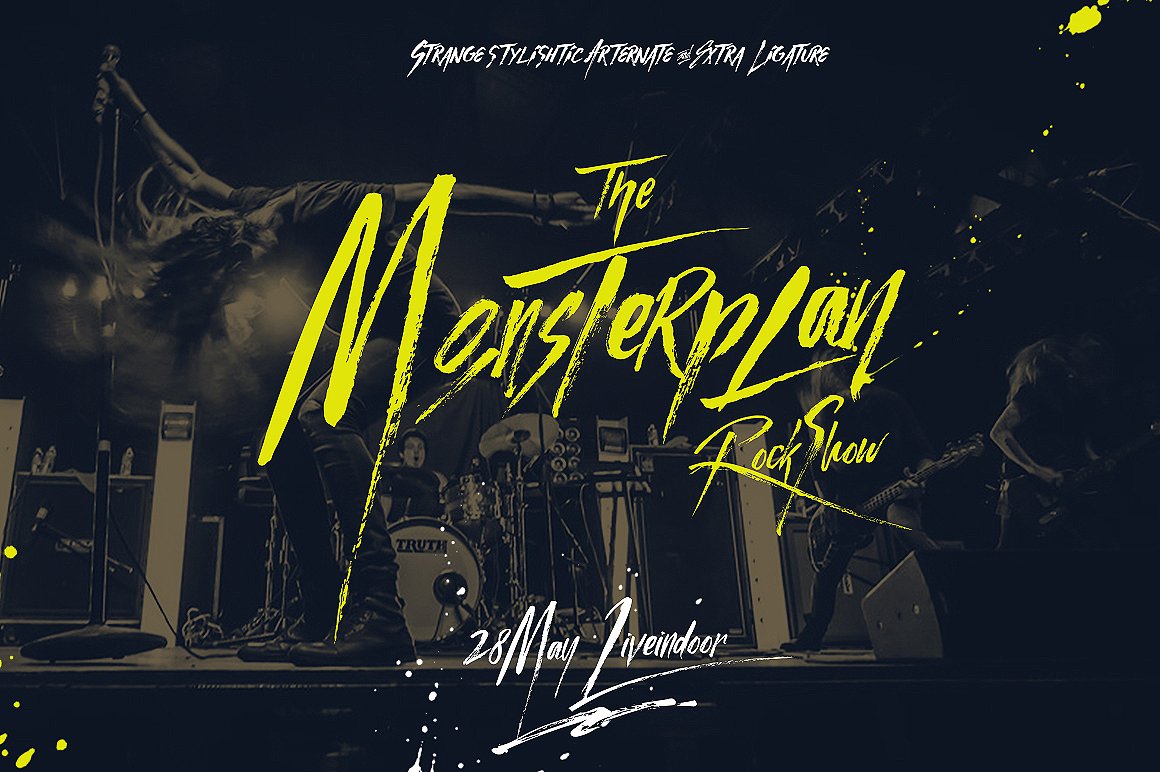
Electric Vibe Brush Font
Electric Vibe Typeface made from natural Brush pen, come up from fast track hand drawn, suit for headline title, film movie, quote text, Product, Logo, Signature, Gig, poster, Music event